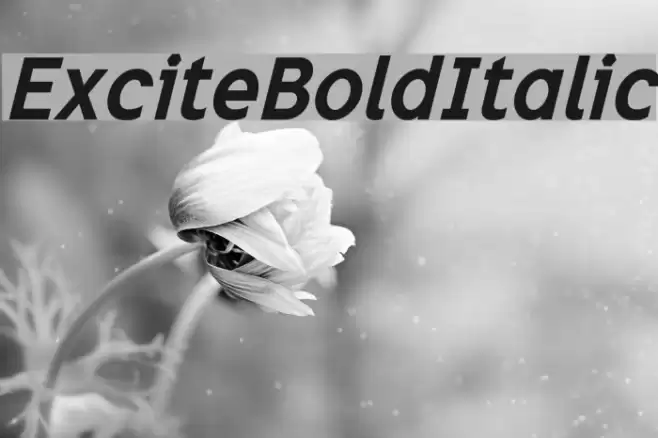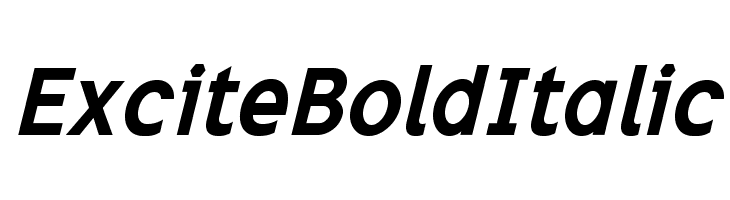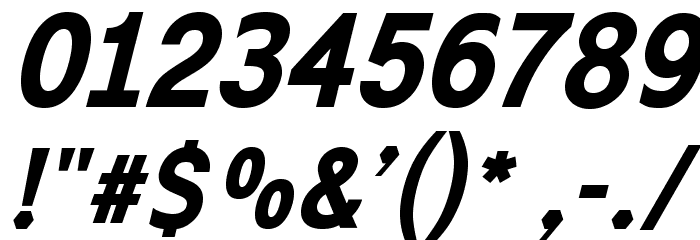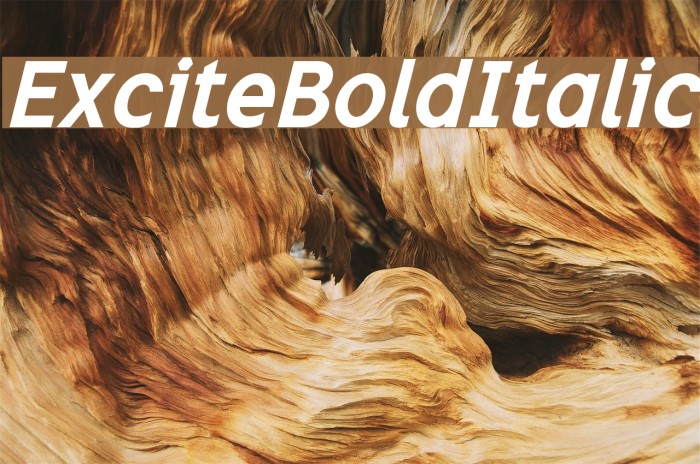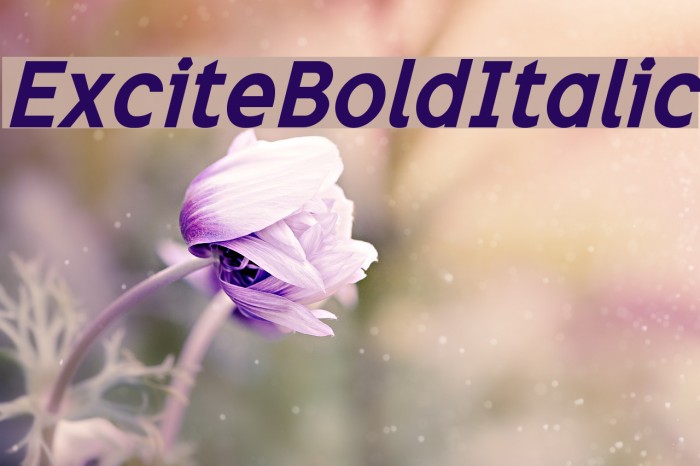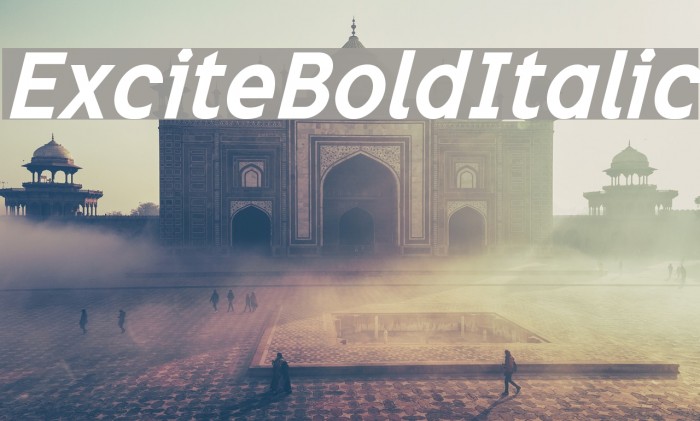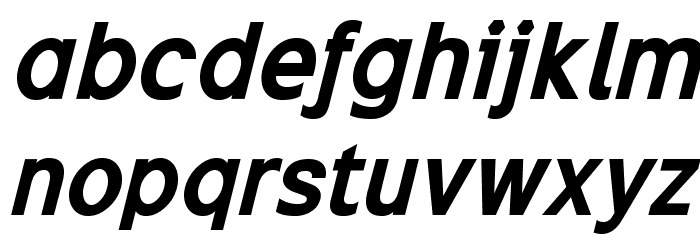
ExciteBoldItalic Font
ExciteBoldItalic Description
This font exhibits a bold and dynamic style with a pronounced italic slant, giving it a sense of motion and energy. The characters are robust and well-defined, with consistent stroke thickness that maintains readability across all sizes. The uppercase and lowercase letters are designed with a modern aesthetic, featuring smooth curves and sharp angles that enhance its contemporary appeal. The numerals are clear and distinct, ensuring easy legibility. Special characters are included, maintaining the font's cohesive style. This font is versatile, suitable for various design applications that require a strong and impactful visual presence.
A bold, italic font with a modern and dynamic style from Uncategorized fonts.